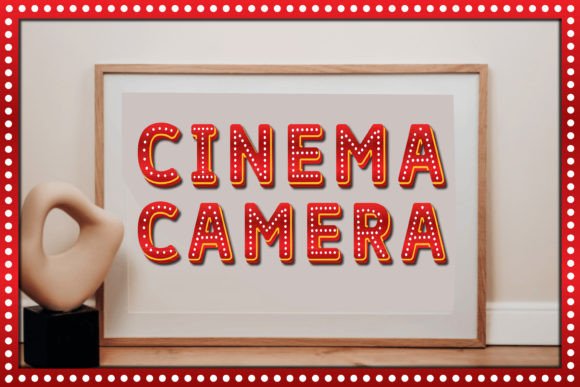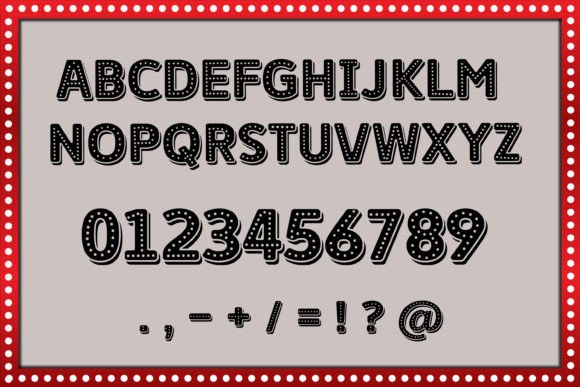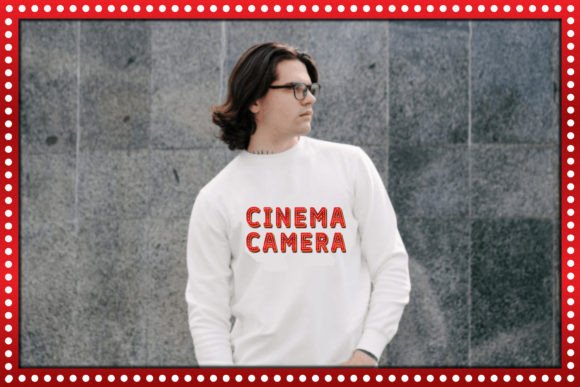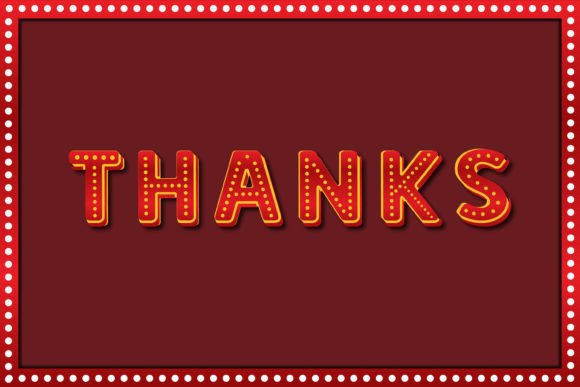
Cinema Camera Font: Elevate Your Designs with a Vibrant Splash of Joy
Are you tired of using the same old fonts in your designs? Look no further! Introducing the Cinema Camera Font, a vibrant and whimsical color font that is sure to add a splash of joy to your creative projects. This stunning font is perfect for designers and crafters who want to elevate their designs and make them stand out from the crowd.
Unleash Your Creativity with Cinema Camera Font
Our Cinema Camera Font is designed to embody joy and whimsy, making it the perfect fit for a wide range of design endeavors. Whether you’re working on branding initiatives, packaging designs, logotypes, or headlines, this font is sure to add a touch of magic to your creations. Its unique and playful style makes it an absolute fit for wedding invitations, greeting cards, and other creatives that require a personal touch.
The Cinema Camera Font offers endless design possibilities, allowing you to experiment with different colors, textures, and styles to create truly unique and eye-catching designs. Its versatility makes it perfect for various design applications, including:
- Branding Initiatives: Create a lasting impression with your brand’s identity using our color font.
- Packaging Designs: Stand out on store shelves with eye-catching packaging designs that showcase your product’s personality.
- Logotypes: Create a memorable logo that tells your brand’s story with our whimsical font.
- Headlines: Grab attention with bold and colorful headlines that make your message shine.
- Wedding Invitations: Add a touch of elegance and whimsy to your wedding invitations and save-the-date cards.
Transformative Power of Cinema Camera Font
Our Cinema Camera Font has the transformative power to elevate your designs and take them to the next level. Its unique and playful style can:
- Add a Personal Touch: Infuse your designs with a personal touch that resonates with your audience.
- Evokes Emotions: Create an emotional connection with your audience through the font’s joyful and whimsical style.
- Boost Creativity: Spark creativity and inspire your audience with the font’s playful and imaginative style.
Why Choose Cinema Camera Font?
So, why choose our Cinema Camera Font? Here are just a few reasons:
- Unique Style: Our font offers a unique and playful style that sets it apart from other fonts.
- Versatility: The font is perfect for various design applications, from branding initiatives to wedding invitations.
- Easy to Use: Our font is easy to use and can be easily integrated into your design workflow.
- High-Quality: Our font is of high quality, ensuring that your designs look professional and polished.
Are you ready to take your designs to the next level? With the Cinema Camera Font, you can add a vibrant splash of joy and whimsy to your creative projects. Whether you’re a designer, crafter, or DIY enthusiast, this font is sure to inspire your creativity and help you create stunning designs that stand out from the crowd.
In conclusion, the Cinema Camera Font is a vibrant and whimsical color font that is perfect for designers and crafters who want to elevate their designs and add a touch of magic to their creations. With its unique style, versatility, and ease of use, this font is sure to become a staple in your design toolkit. So, what are you waiting for? Get ready to experience the transformative power of the Cinema Camera Font and take your designs to new heights!